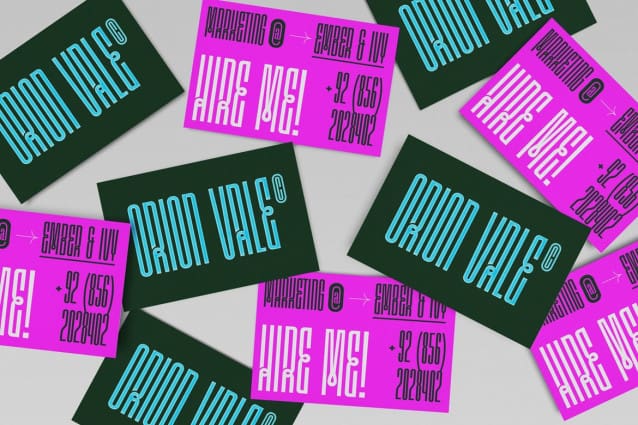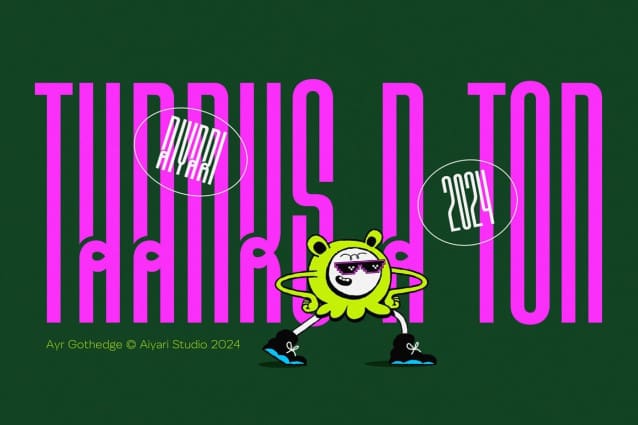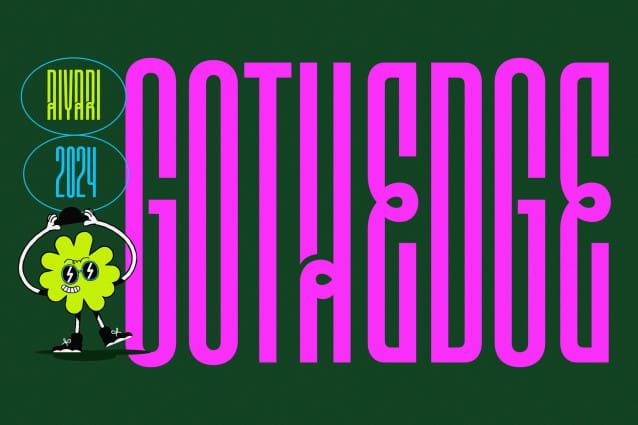
Gothedge Font
Gothedge Font, a typeface that combines the elegance of clean, pared-down letterforms with playful, experimental approaches from the Art Nouveau era.
Ayr Gothedge is ideal for headlines, logotype, quotes, clothing design, invitations, posters, flyers, greeting cards, packaging, book covers, printed quotes, cover albums, films, etc.